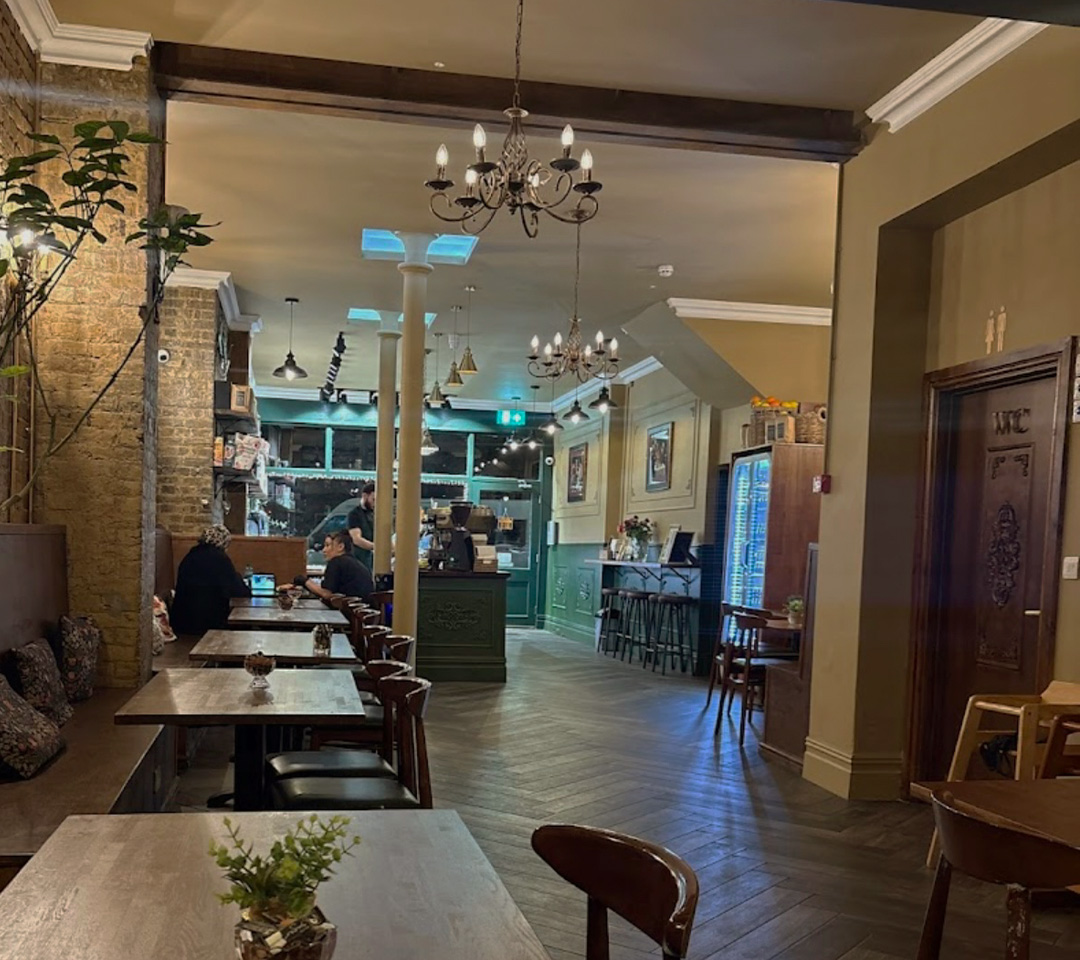
This typeface is based on research I did on 'Caravaggio', a caf' in Camberwell, London. It is an Italian/Turkish family owned business, and is themed around the baroque artist. Tenebrism is an artistic style originating in the baroque cultural movement; consisting of dramatic contrasts between light and shadow, using techniques of chiaroscuro, and pioneered by Caravaggio. The art history behind this concept, as well as the history of the business (closing due to the pandemic, and reopening as a result of community encouragement), consistently leads back to light and darkness, hence why my typeface design is both elaborate and offset with shadow.